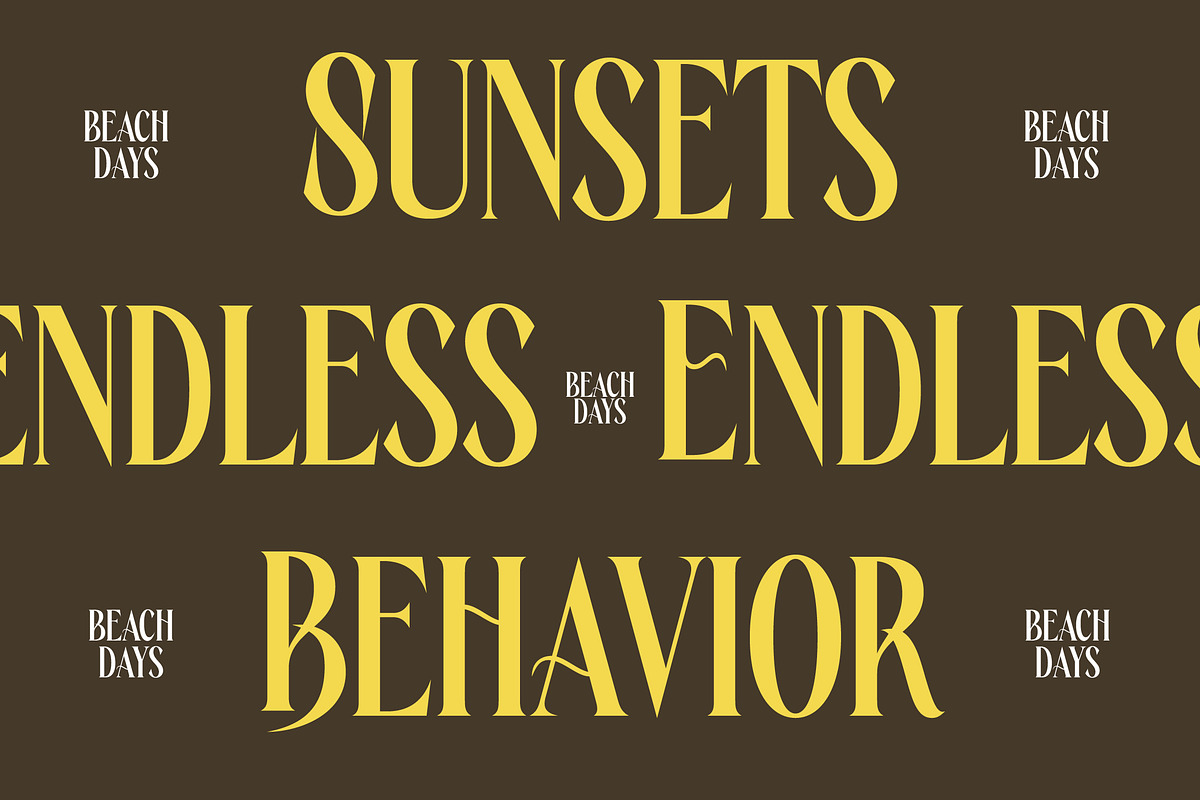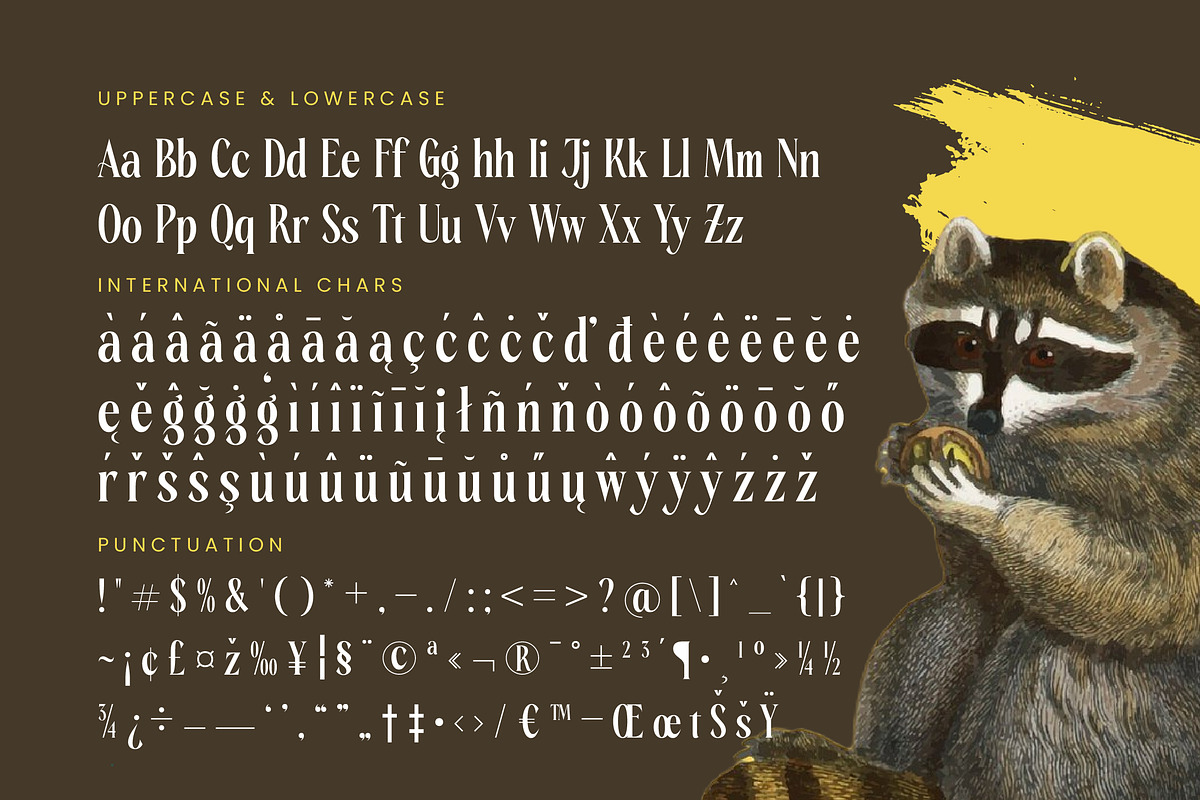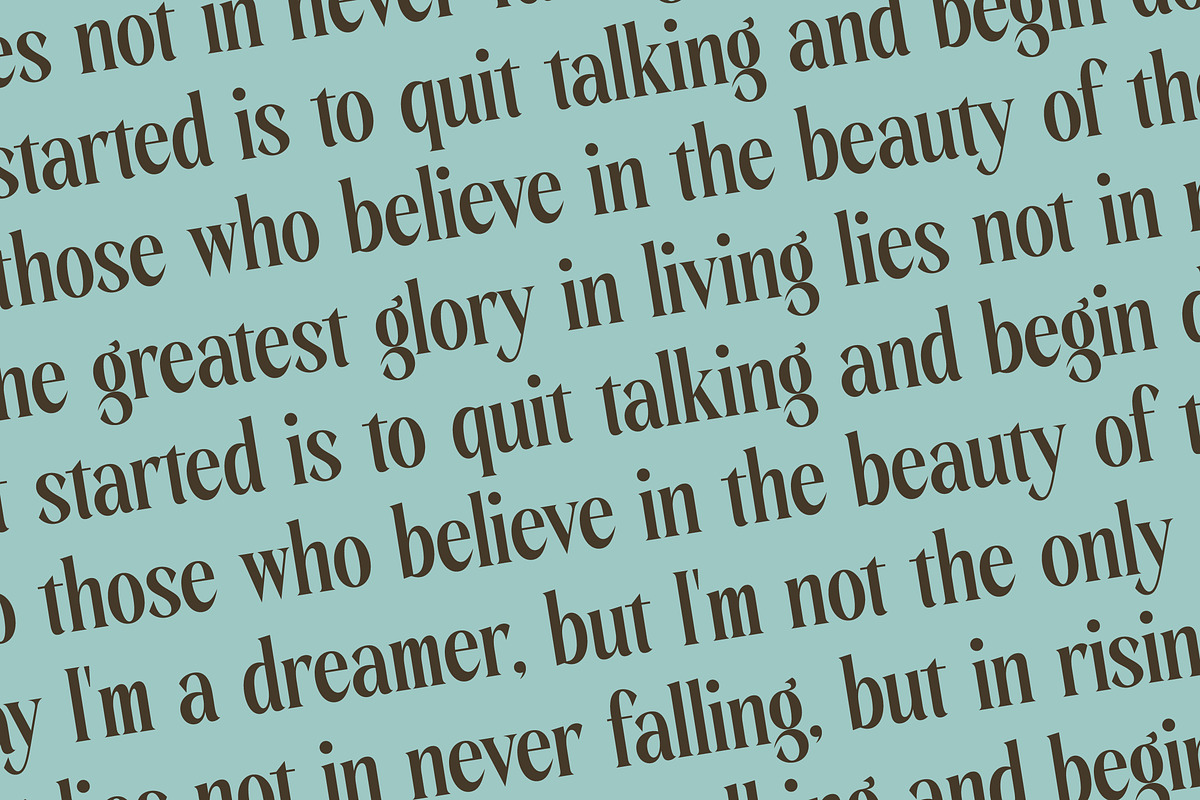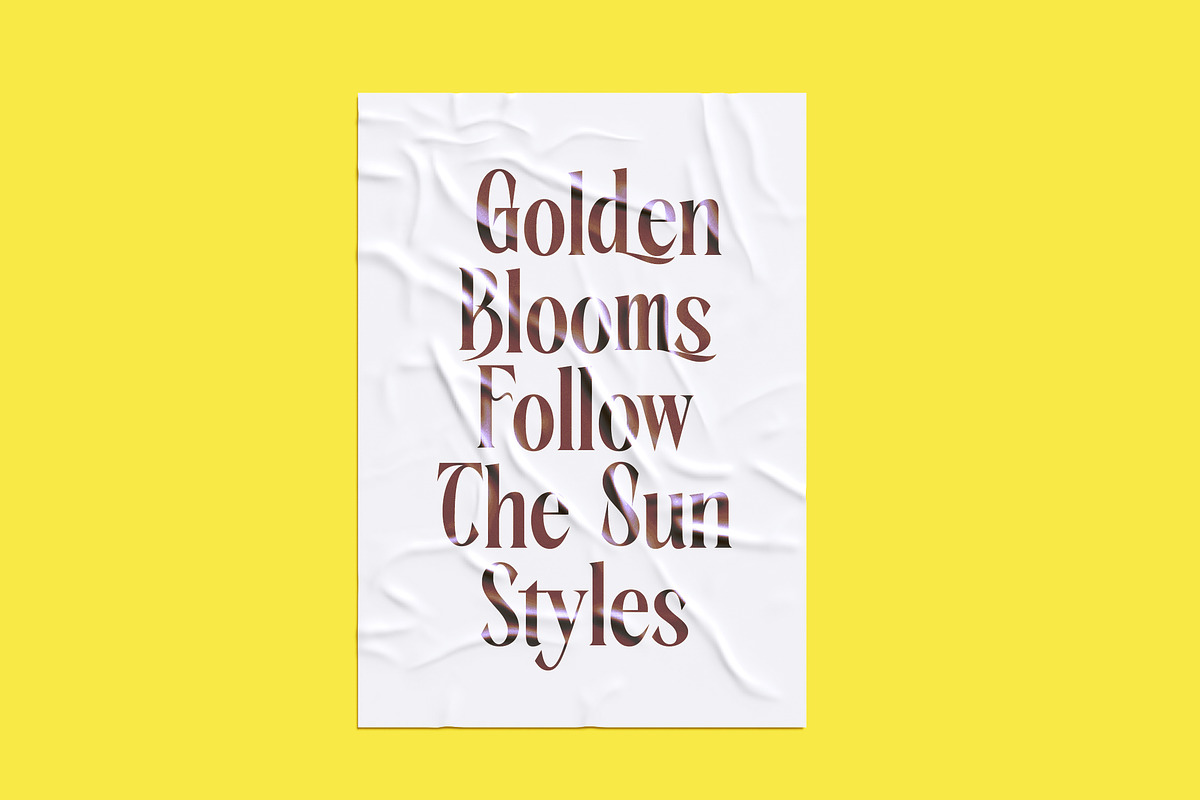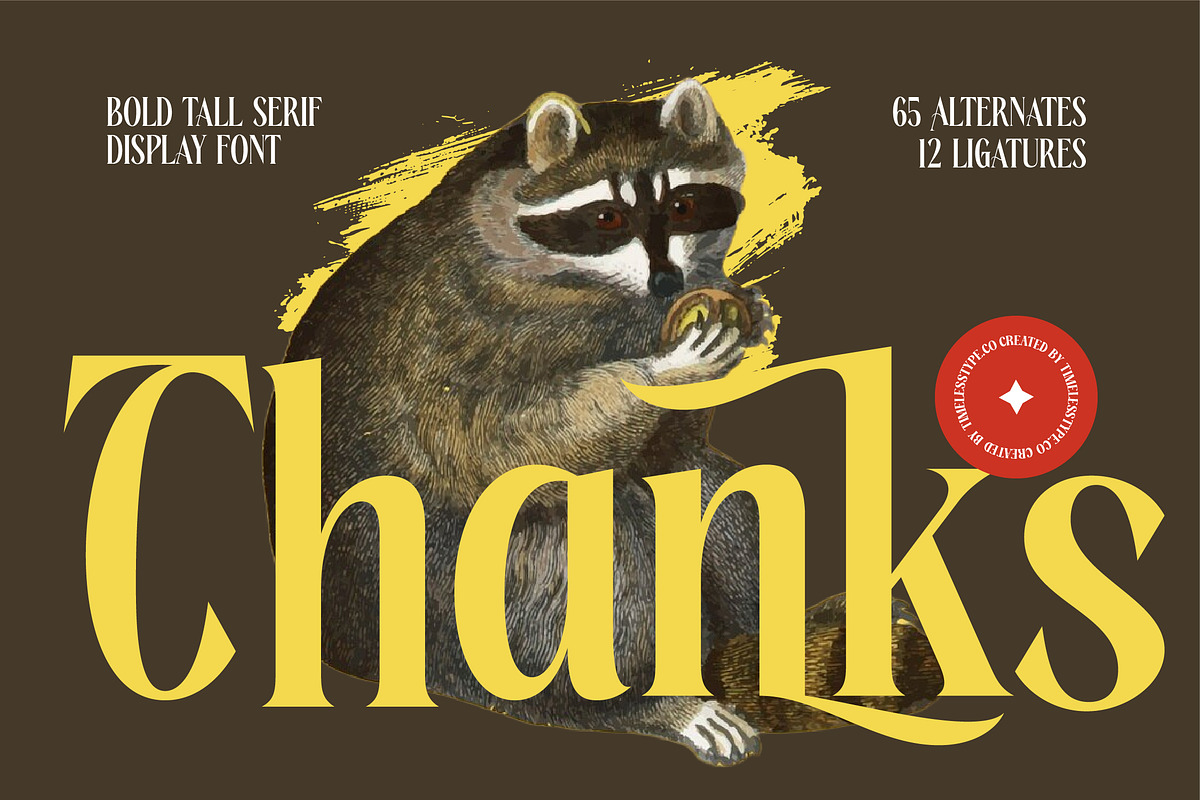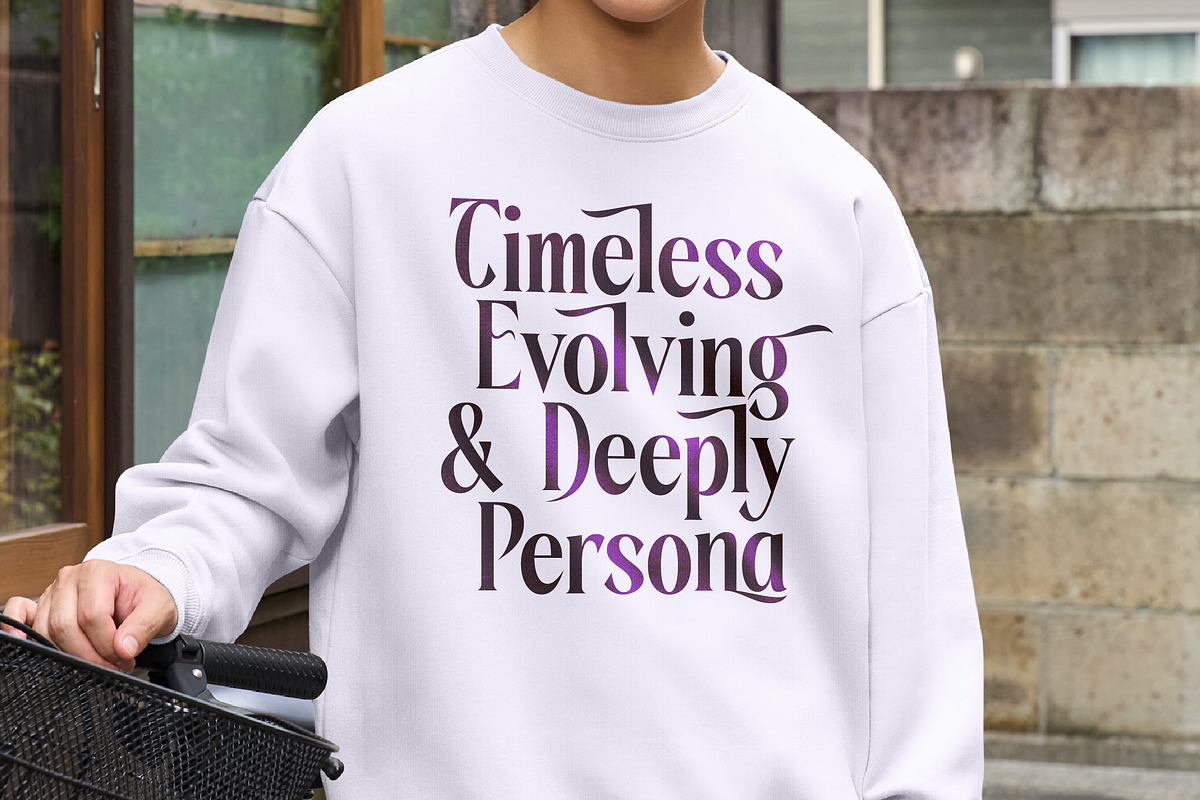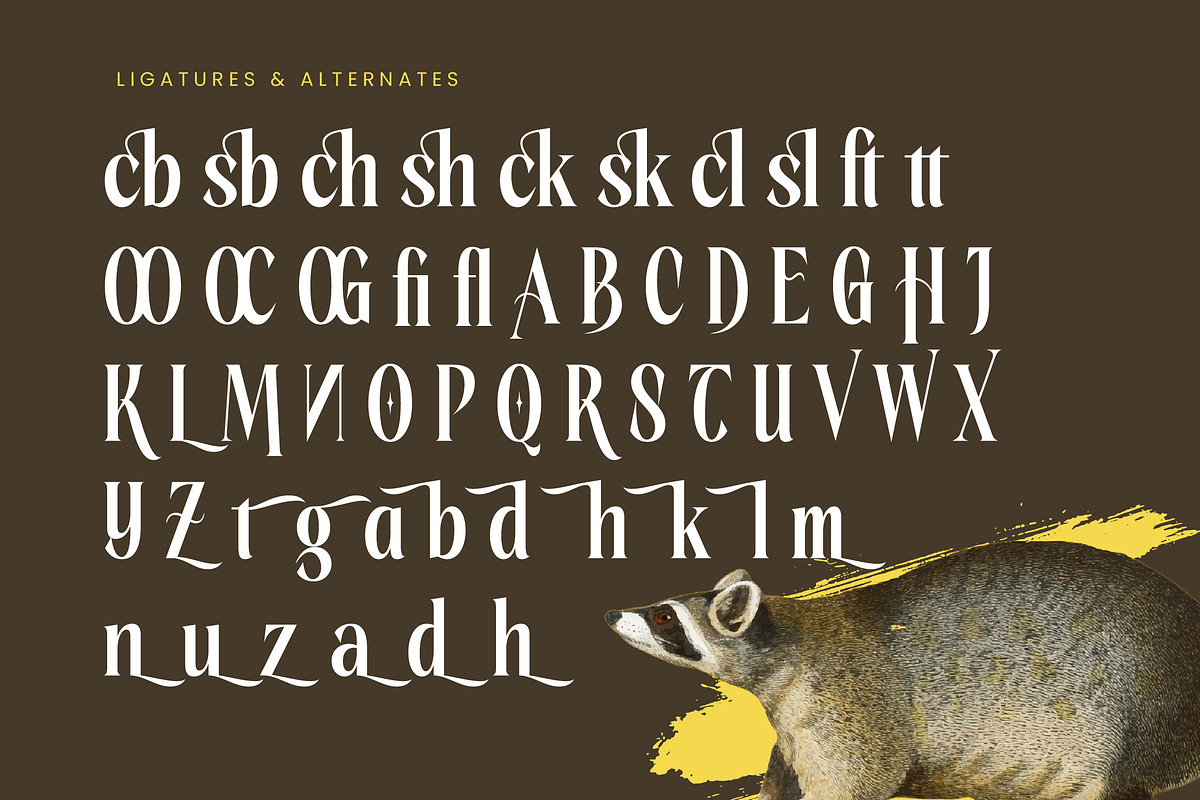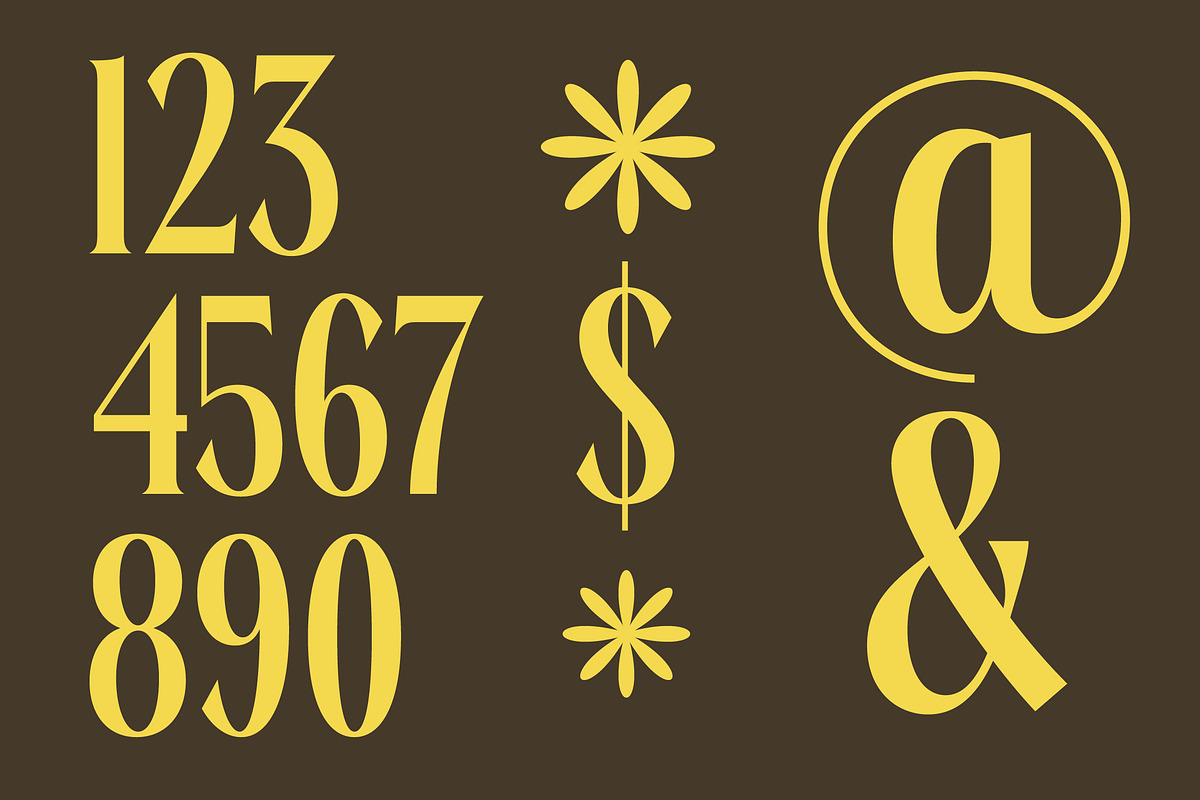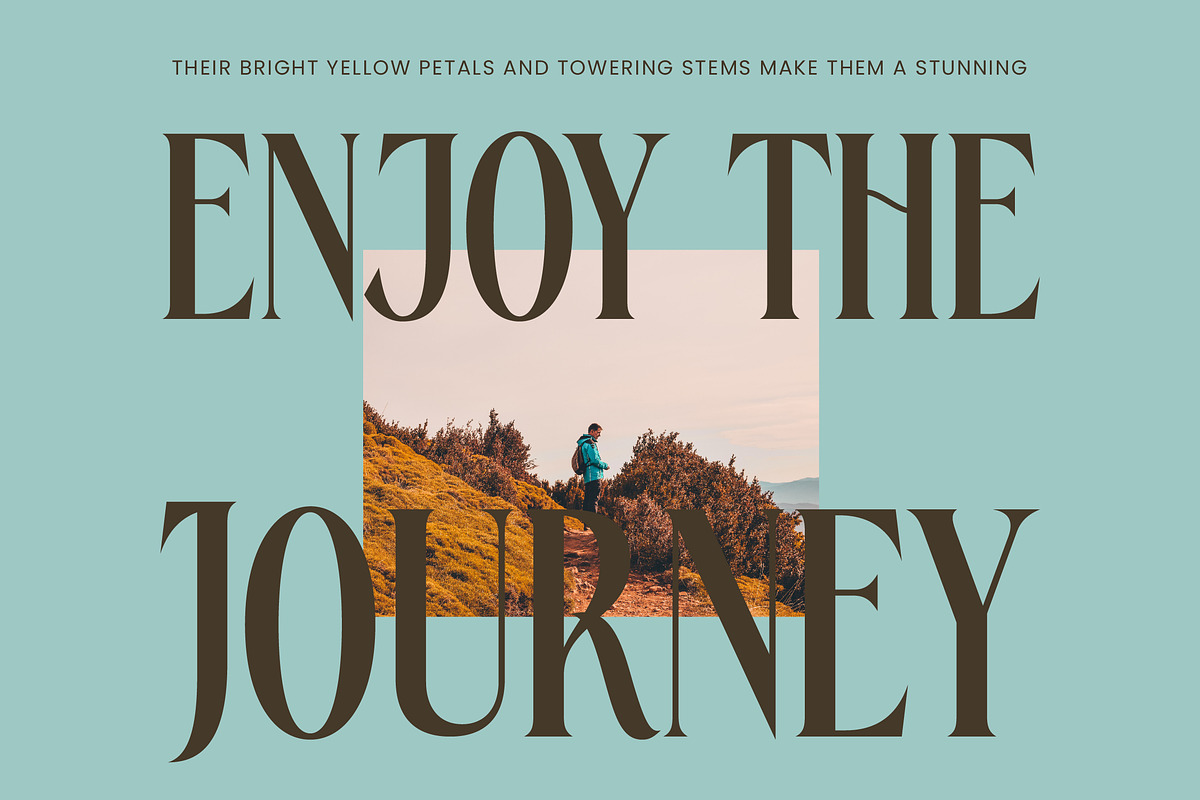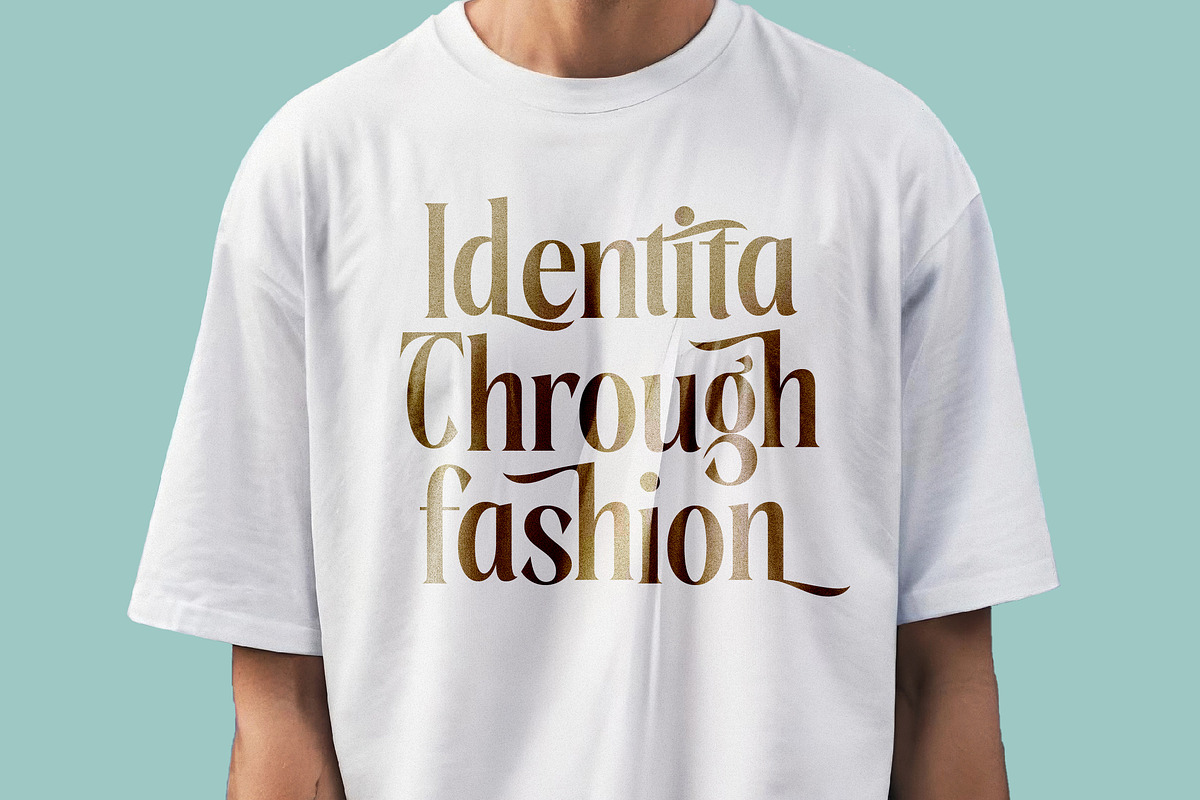
Rachon Bold Tall Display Serif
Introducing Rachon, a captivating display font that bridges the gap between raw natural beauty and high-end editorial sophistication. This typeface commands attention with its towering proportions and gracefully curved details, making every word a visual masterpiece.
Drawing inspiration from the clever and adaptable nature of the forest's most curious inhabitant, this font embodies a sense of wild elegance. Its tall, slender stems and sharp serifs evoke a vintage storybook aesthetic updated for a contemporary design landscape.
As a modern serif display, Rachon delivers a powerful branding impact through its luxury typography and striking high-contrast serif forms. It is an essential editorial font for designers who need to balance classic proportions with avant-garde stylistic flourishes.
Perfectly aligned with the current modern serif trend, this typeface is a prime example of character-driven typography that breaks away from generic styles. It fulfills the demand for editorial display fonts that offer both legibility and a distinct, memorable personality for high-profile projects.
Whether you are crafting a unique logo design or developing a cohesive branding identity, this font excels in editorial layouts and luxury packaging. Its versatile nature also makes it an exquisite choice for high-end wedding invitations and avant-garde fashion lookbooks.
This comprehensive typeface includes 12 decorative ligatures and 65 unique alternates, including striking swashes that allow for custom typographic arrangements. Full multilingual support ensures your message reaches a global audience with its extensive set of international characters.
- Ligature 12 Alternate 65